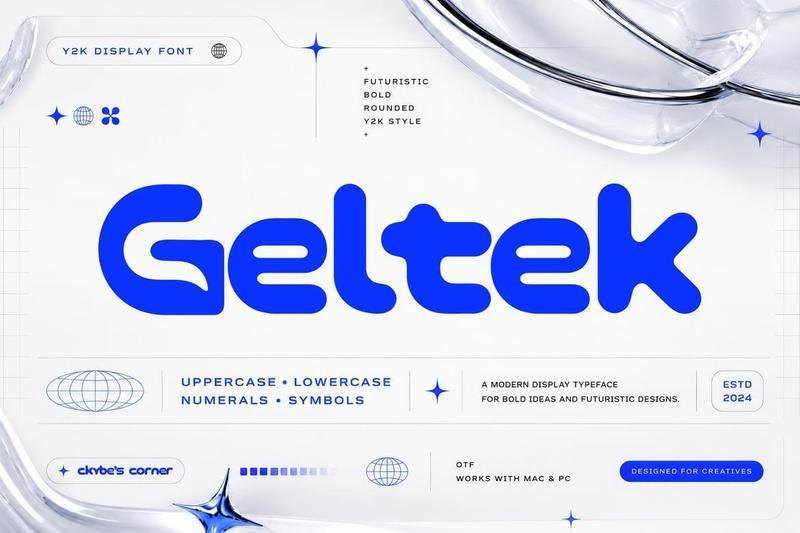
Geltek | Y2K Bubble Display Font 7TT5BJ8
**Geltek** is a bold Y2K-inspired display font with a soft futuristic attitude. Built with chunky rounded shapes, inflated letterforms, playful curves, and a heavy black-weight presence, it is perfect for designs that need a trendy early-2000s techno-bubble look.
**Style**
* **Y2K inspired**
* **Bold display font**
* **Rounded bubble forms**
* **Futuristic and playful**
* **Heavy black-weight look**
* **Clean, graphic, and eye-catching**
**Geltek** is made for bold visual statements from nostalgic 2000s graphics to modern fashion, music, beauty, and lifestyle branding.